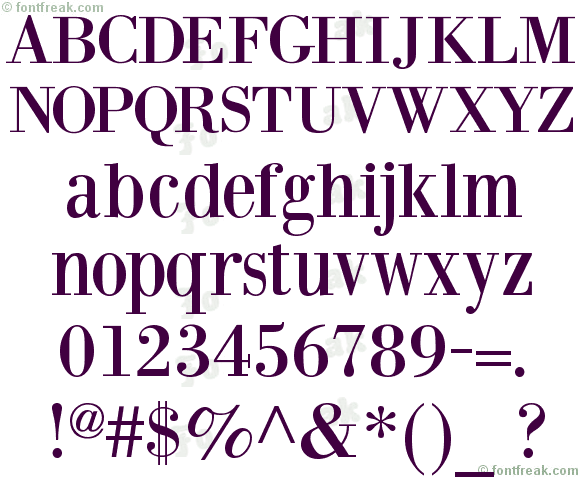
BodoniXT
About Bodoni XT
Bodoni XT, designed by Manfred Klein, is a striking serif font that embodies elegance and sophistication. As a modern interpretation of the classic Bodoni typeface, it showcases a distinctive high contrast between thick and thin strokes, typical of the Bodoni style. The beautifully tapered serifs and refined letterforms offer a timeless quality, making it a versatile choice for various design applications. The font exhibits a generous amount of spacing, allowing for readability and making it suitable for both headlines and body text.
This font is ideal for a range of creative projects. Its stylish and formal appearance makes it perfect for wedding invitations, where elegance is paramount. Graphic designers can utilize Bodoni XT for upscale magazine layouts or luxury branding, as it conveys a sense of sophistication and refinement. Additionally, it works wonderfully for restaurant menus, where it can highlight the culinary artistry in an appealing manner. Movie posters will benefit from its dramatic flair, capturing the viewer’s attention and setting the tone for the film.
What sets Bodoni XT apart is its blend of contemporary aesthetics with timeless design principles. The font manages to retain the essence of the traditional Bodoni while offering a fresh and modern approach, making it a valuable addition to any designer’s font collection. For those looking to elevate their projects, a Bodoni XT font free download is an opportunity not to be missed.